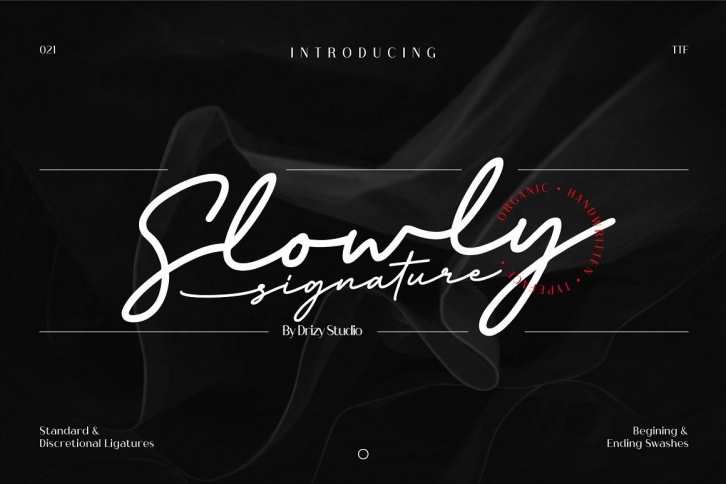
Slowly Signature is a lovely and timeless handwritten font. It is the best choice for creating eye catching logos, branding and quotes. Slowly Signature is PUA encoded which means you can access all of the glyphs and swashes with ease!Â